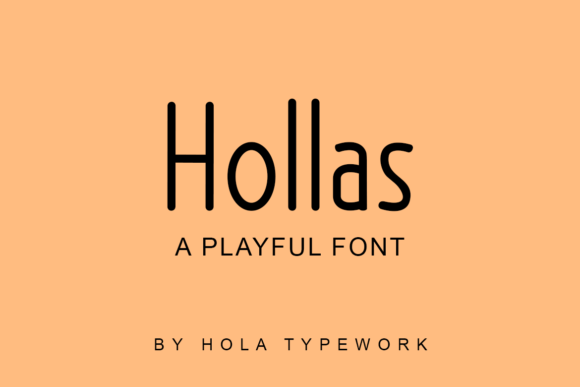
Discover the Timeless Charm of Hollas Font
Have you ever found yourself lost in the world of typography, searching for the perfect font to elevate your next design project? You’re not alone. As creatives, we’re constantly on the lookout for fonts that not only convey our message but also add a touch of elegance to our work. It’s during these moments of inspiration that we stumble upon hidden gems, and for many of us, the Hollas Font is just that.
With its impeccable form and balanced design, Hollas Font is a sans serif masterpiece inspired by the timeless charm of calligraphy. This versatile font is designed to enhance the beauty of your projects, making it a valuable addition to any designer’s toolkit. Whether you’re working on a brand identity, a marketing campaign, or a personal project, Hollas Font is sure to impress.
- Unique Characteristics: Unique, modern design with a wide range of ligatures and contextual alternates
Hollas Font Review
Hollas Font is a unique and modern sans-serif typeface that caught my attention. ✨ Its clean lines and geometric shapes make it perfect for creating a professional and sleek design. The font is highly legible, even at smaller font sizes, making it ideal for digital interfaces and publications.
- ✨ Versatile: Hollas Font can be used in a variety of design contexts, from corporate branding to digital marketing materials.
- ✨ Customizable: The font includes a range of weights and styles, allowing designers to experiment with different looks and feels.
- ✨ Professional: Hollas Font exudes a sense of sophistication and elegance, making it suitable for high-end brands and businesses.
However, there are a few limitations to consider: ⚠️ The font may not be suitable for text-heavy designs, as it can become overwhelming when used extensively. Additionally, the font’s geometric shape may not be the best choice for designs that require a more organic or handwritten feel.
Overall, I’m impressed with Hollas Font’s potential and versatility. While it may not be perfect for every design project, it’s a great addition to any designer’s toolkit. With careful use and consideration, Hollas Font can help create stunning and effective designs.
Hollas Font is ideal for:
- Creative branding and marketing materials.
- Custom graphics and illustrations.
- Headings and titles in presentations and documents.
Hollas Font is a popular sans-serif font known for its modern and clean design. However, there are several alternatives that can be used in various design projects.
Hollas Font is designed for use in digital interfaces, such as websites, mobile apps, and software applications. It is ideal for use in headings, titles, and body text, and can be used in conjunction with other fonts to create a visually appealing and consistent design. However, it is not recommended to use Hollas Font for print materials, such as